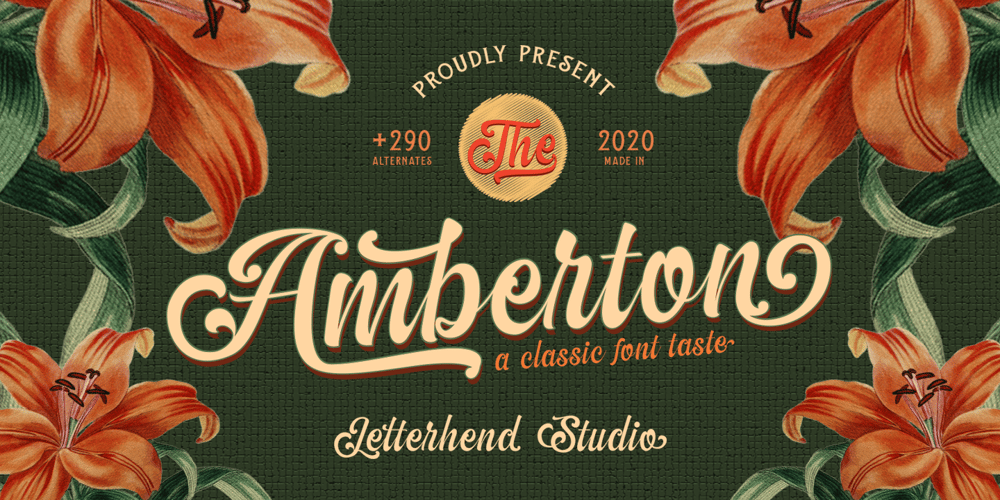
The Amberton
The Amberton font
The Amberton Font Family was designed by Hendry Juanda and published by Letterhend. The Amberton contains 1 styles and family package options. Introducing, The Amberton – A classic script typeface. This font has unique swashes, inspired by classic floral ornaments. Another thing that make this font even more unique is this font has total 290 alternates which you can play around and creates beautiful lettering in a sec.Perfect to be applied especially in logo, and the other various formal forms such as invitations, labels, logos, magazines, books, greeting / wedding cards, packaging, fashion, make up, stationery, novels, labels or any type of advertising purpose.Features : uppercase & lowercase numbers and punctuation multilingual swash and ligature alternates PUA encoded 290 alternates We highly recommend using a program that supports OpenType features and Glyphs panels like many of Adobe apps and Corel Draw, so you can see and access all Glyph variations.